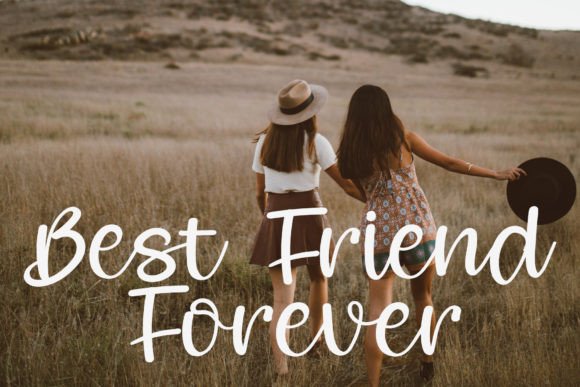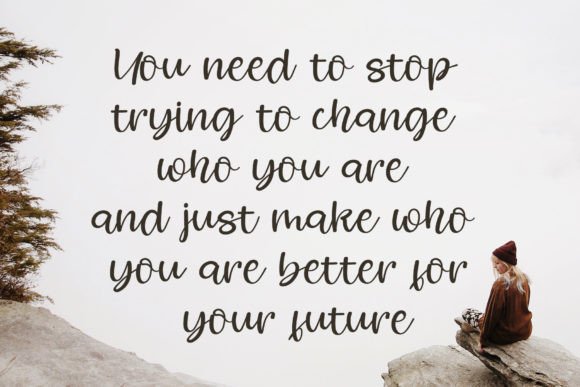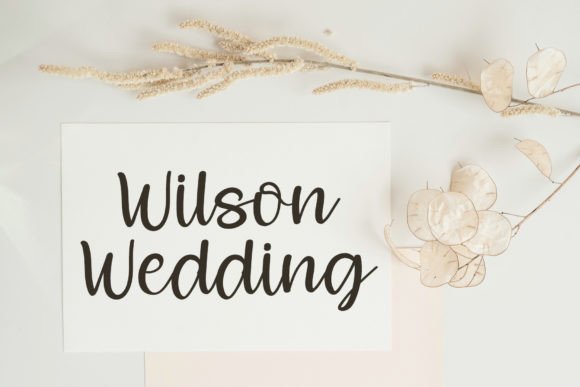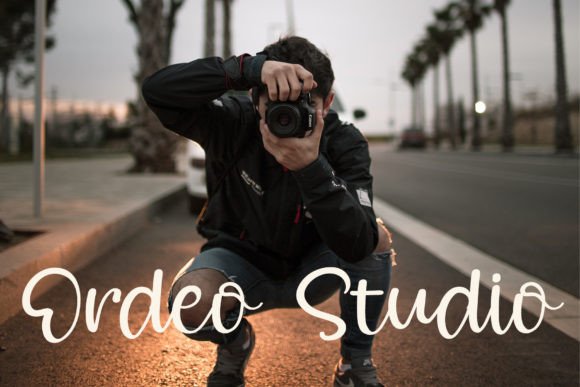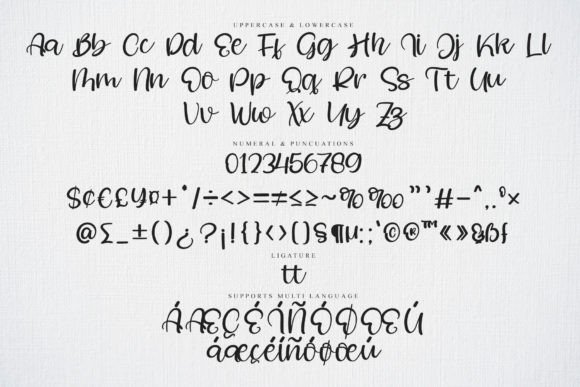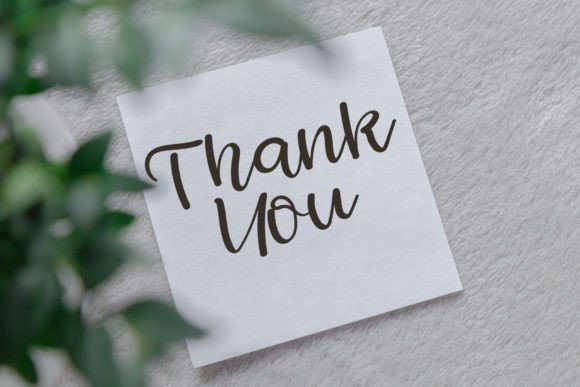
Introduction to Slice Font
Remember that moment when you finally nailed a design concept for a client? The feeling of satisfaction and pride that comes with creating something beautiful is unmatched. For designers, it’s a moment that makes all the hard work worth it. And, what if you had the perfect tool to elevate your designs and make that moment even more special? Enter the Slice Font, a stylish and dainty script font that’s perfect for adding a beautiful handwritten touch to your creative projects.
This versatile font is ideal for logos, branding, labels, watermarks, and any other design that requires a high-quality, elegant look. With its PUA encoded feature, you can access all the glyphs and swashes with ease, making it a valuable resource for designers who want to take their work to the next level. Whether you’re working on a project with a transparent background or need a font that’s perfect for a free download, the Slice Font is a great addition to your design arsenal.
Key Features of Slice Font
- High-quality vector font with a transparent background, ideal for creative projects.
- Unique, hand-drawn style with intricate details and textures, perfect for adding a personal touch to designs.
Honest Review: Slice Font
- High quality glyphs that make it perfect for titles and headings
- Transparent background, making it easy to place over any image or color
- Wide range of font weights and styles to choose from
The font’s versatility and high quality make it a great addition to any design project. I was able to use it seamlessly in a logo design and it looked amazing.
- May not be suitable for body text due to its bold and eye-catching nature
- Some users may find the font a bit too ornate for their taste